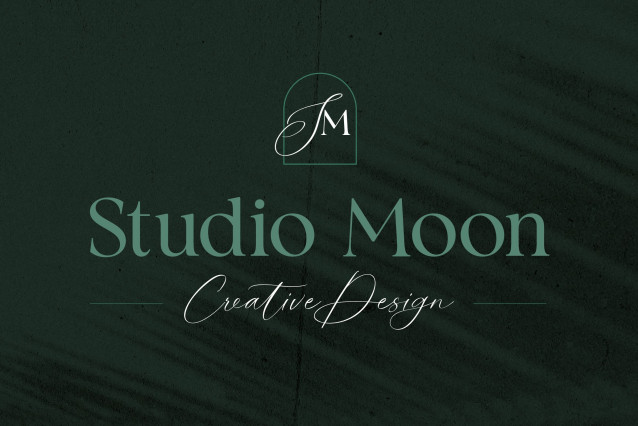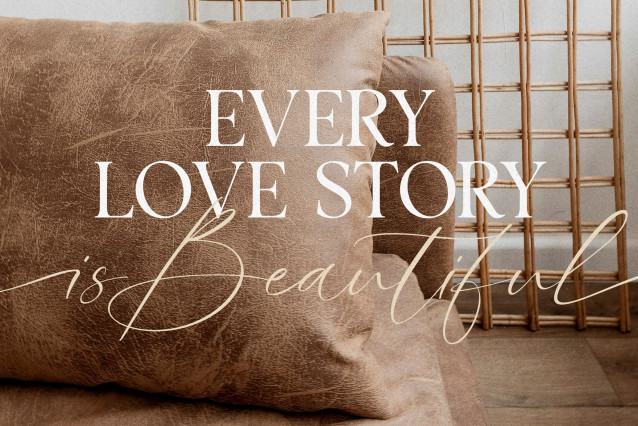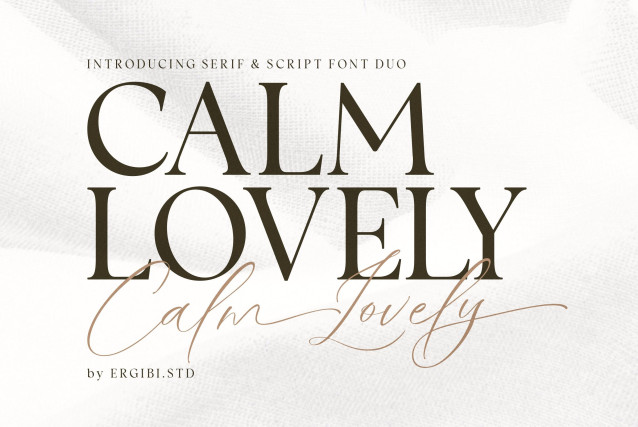
Calm Serif Font
Calm Serif Font  – Calm Lovely is Modern Duo, these fonts are of two types serif and script. Display Serif inspired by famous logo and stylish, This typeface has been made carefully to make sure its premium quality and luxury feel. Calm Lovely perfectly for headlines, wedding, social media, logos, posters, packaging, T-shirts,coffee shops, restaurants, magazine’s headers, signs or gift/post cards,cafe’s and weddings or any type of advertising purpose.